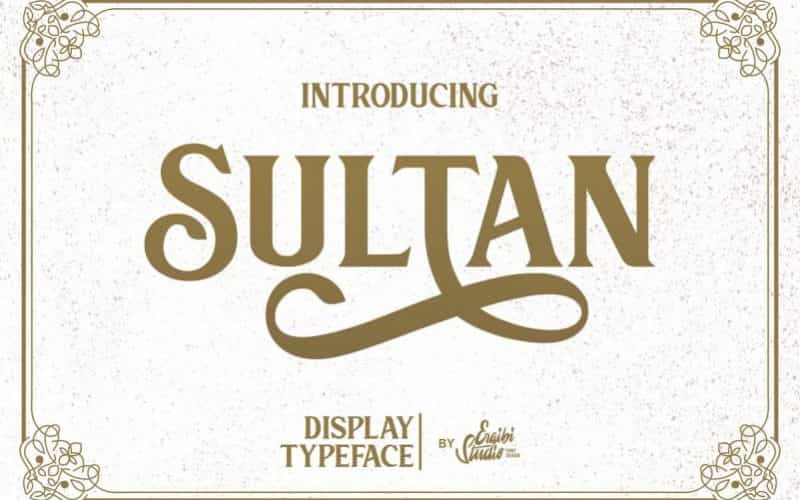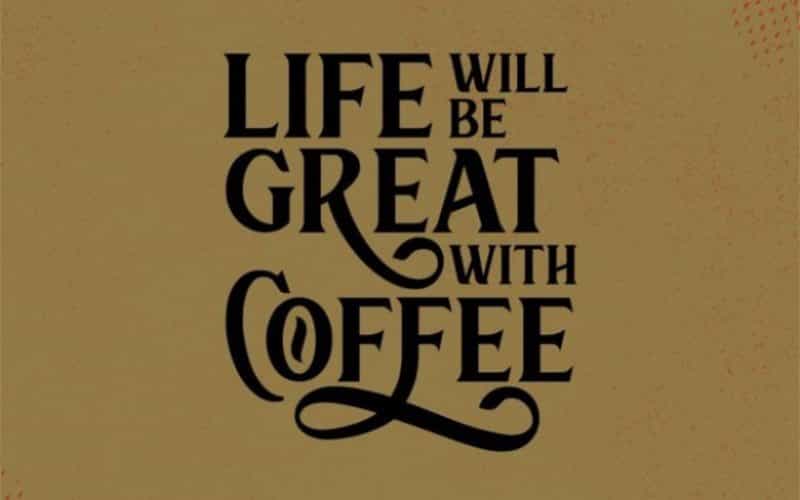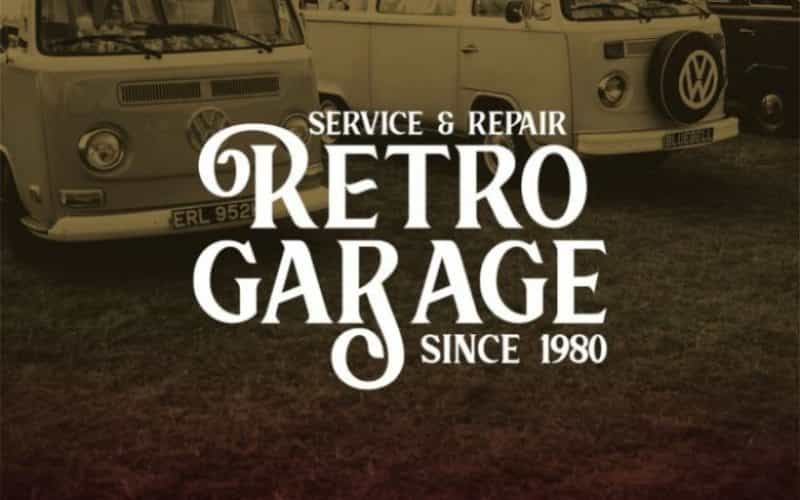
“SULTAN” is a serif font. It is a classic form with the accumulation of contemporary decorative and minimalistic shape. Fonts are made of different uppercases and special characters. fonts are multilingual support and they are perfect for logos, branding, mockups, t-shirts ,branding and any other needs that want this vintage form.